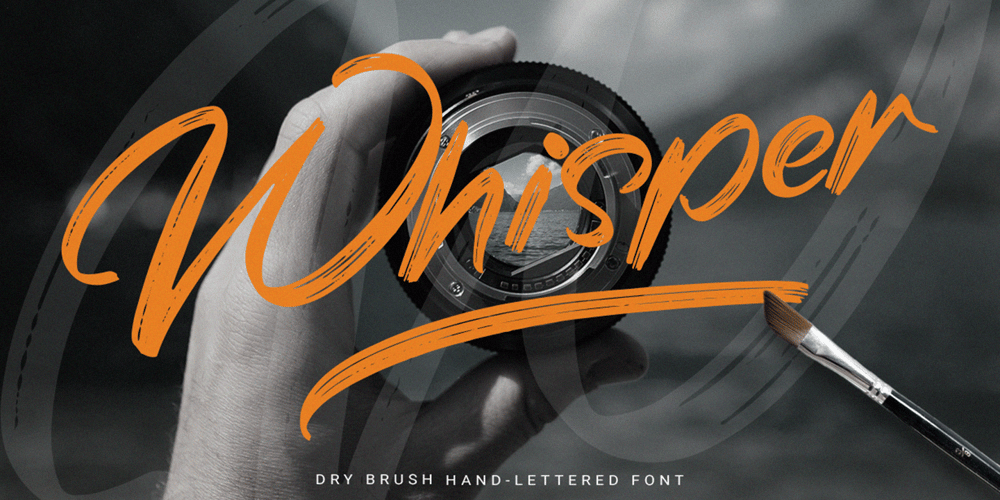
Whisper Script
Whisper Script font
Whisper Script Font Family was designed by Ferry Ardana Putra and published by Ferry Ardana Putra. Whisper Script contains 1 styles and family package options. Whisper is a stunning hand-lettered dry brush font. This typeface is very unique! It has an unique natural dry-brush feel which will outstand your project with ease! Combine it with its remarkable swashes which you can choose dozens of them!This typeface is perfect for creating elegant branding and headlines for handmade, food & beverage and artisan goods, quotes, invites, t-shirts, Logos, or use it to make your social media feed into another level!Whisper features:A full set of upper & lowercase charactersNumbers & punctuationMultilingual language supportPUA Encoded CharactersDozen of SwashesOpenType FeaturesWhisper includes:———⚠️To enable the OpenType Stylistic alternates, you need a program that supports OpenType features such as Adobe Illustrator CS, Adobe InDesign & CorelDraw X6-X7, Microsoft Word 2010 or later versions. There are additional ways to access alternates/swashes, using Character Map (Windows), Nexus Font (Windows), Font Book (Mac) or a software program such as Pop Char (for Windows and Mac).⚠️For more information about accessing alternative, you can see this link: http://adobe.ly/1m1fn4Y———🔑Important tutorial from the author:Tutorial for Mollusca font trio: https://lnkd.in/d984CQD6How to use Midway | Retro Script Font on illustrator: https://lnkd.in/eusbZd7sHow to use Midway | Retro Script Font on Photoshop: https://lnkd.in/evsYrwgs———❤️Get in touch with the author:Instagram: https://www.instagram.com/ardana619Behance: https://www.behance.net/ardana619———🔥Thankyou for purchasing our product, hope you like and have fun with our product. If you have any queries, questions or issues, please don’t hesitate to contact us directly. If you satisfied with our product, please give 5 stars rating.———😊Happy Designing…